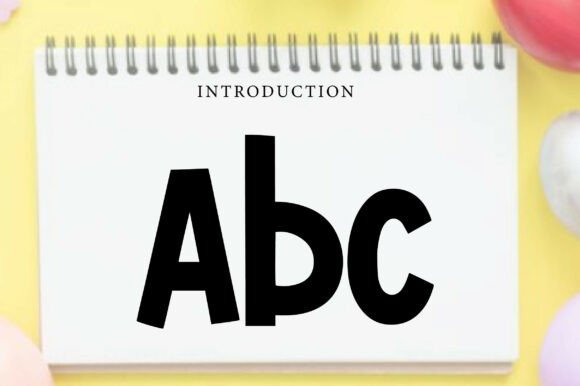
Introduction to Joyful Easter Font
Joyful Easter is a festive and tall handwritten font with a charmingly irregular baseline.
Its slender yet bold strokes give it a whimsical look that is the premier choice for seasonal holiday cards, spring-themed event flyers, and independent โcottage-gardenโ branding .
Key Features of Joyful Easter Font